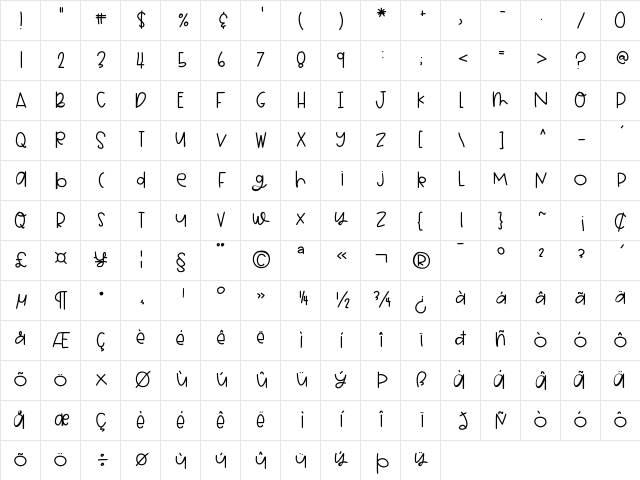
Complete HelloProsecco Medium glyph index. Displaying only characters natively supported by HelloProsecco Medium font.
HelloProsecco is a composed and adaptable typeface that performs quietly and consistently across a wide range of design contexts.